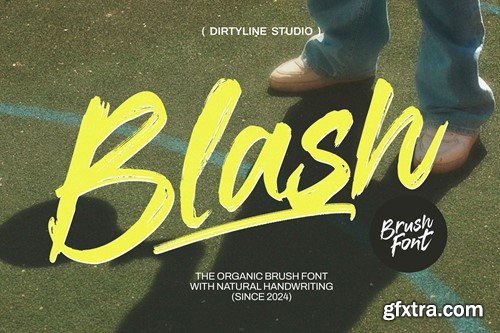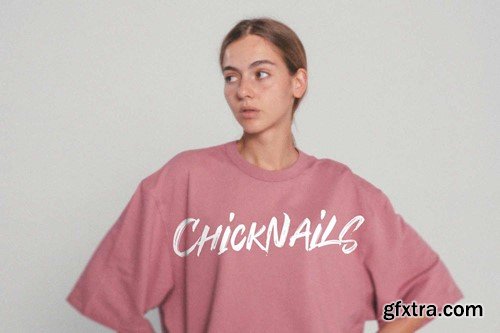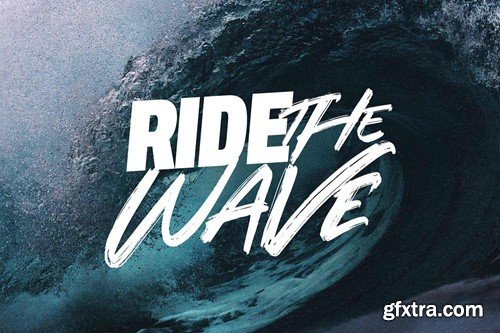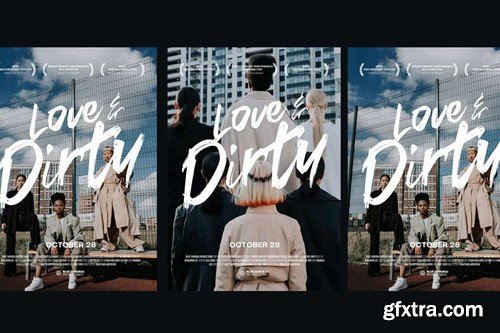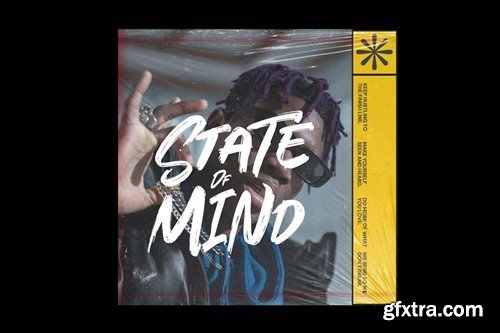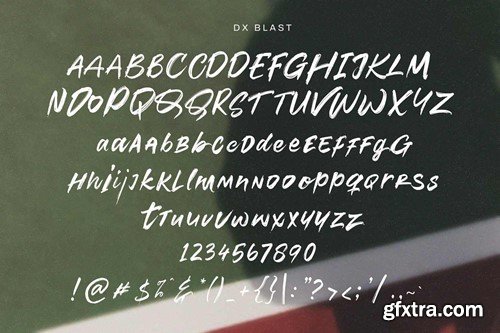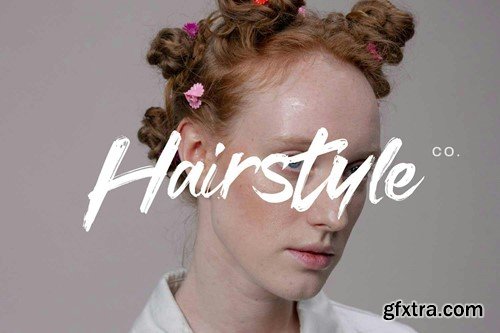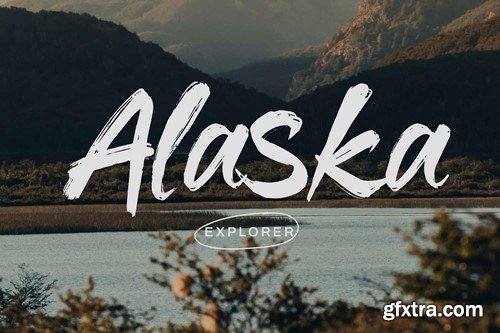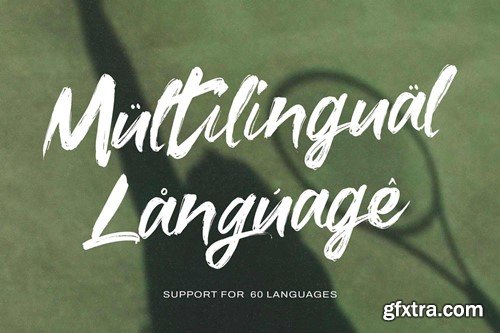
DX 褪墨 - 睫毛笔书法 4BZXKJ2
Dx Blash - Brush Font Lettering Dx Blash a Modern Lettering Font, Inspiring from brush lettering style typography. This font is perfect for a design that makes it more attractive and playful. made with a very good level of aesthetics making this font suitable for book cover, poster, packging, merchandise, logotype and much more. Dx Blash font includes Multilingual Support, among others : Afrikaans • Albanian • Asu • Basque • Bemba • Bena • Cebuano • Chiga • Cornish • Corsican • English • Estonian • Filipino • Finnish • Friulian • Galician • Gusii • Ido • Indonesian • Interlingua • Irish • Italian • Javanese • Jju • Kabuverdianu • Kalenjin • Kinyarwanda • Lojban • Low German • Luo • Luxembourgish • Luyia • Machame • Makhuwa-Meetto • Makonde • Malagasy • Malay • Manx • Morisyen • North Ndebele • Northern Sotho • Nyankole • Occitan • Oromo • Portuguese • Romansh • Rombo • Rundi • Rwa • Samburu • Sango • Sangu • Sardinian • Scottish Gaelic • Sena • Shambala • Shona • Soga • Somali • South Ndebele • Southern Sotho • Spanish • Sundanese • Swahili • Swati • Swedish • Swiss German • Taita • Taroko • Teso • Tsonga • Tswana • Vunjo • Xhosa • Zulu ** FEATURES ** : FILES INCLUDED :